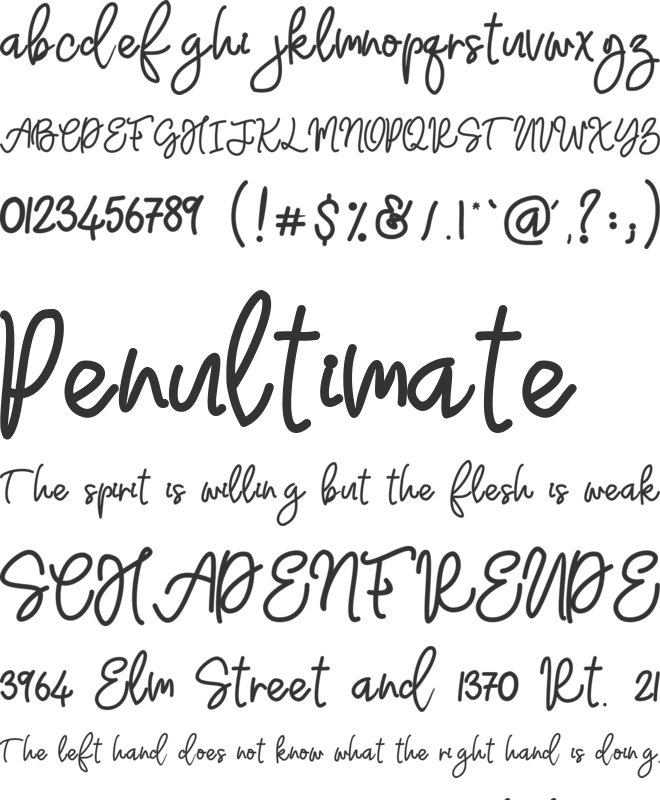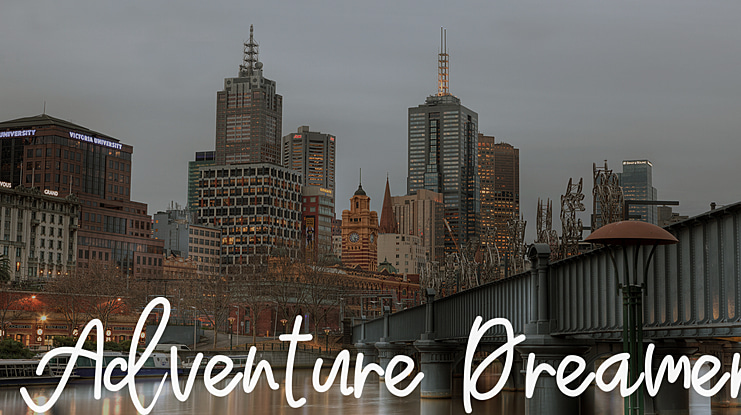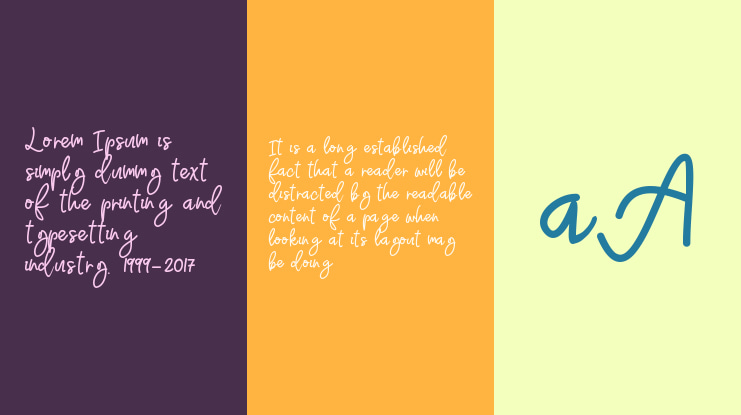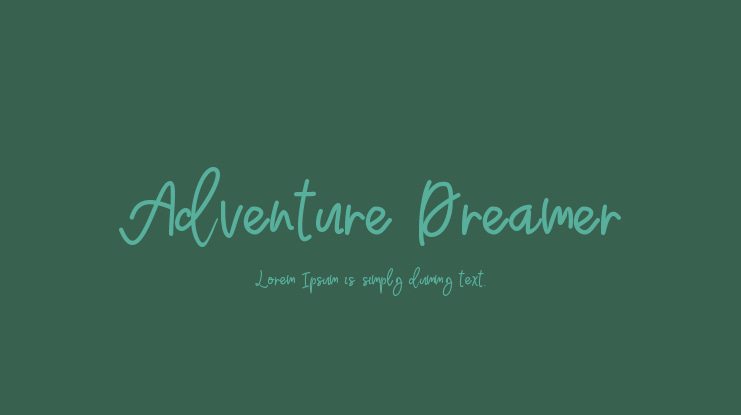
Adventure Dreamer Font
Hi Font Lover! This is a modern calligraphy font with the current handwriting style.
Adventure Dreamer is a stylish unique handwritten font and easy to remember.
It's great for unique branding, photo overlays, watermark, business card, invitations, wedding, photography, fashion, etc.
This font is easy to use, the basis if this unique font is it’s simplicity.